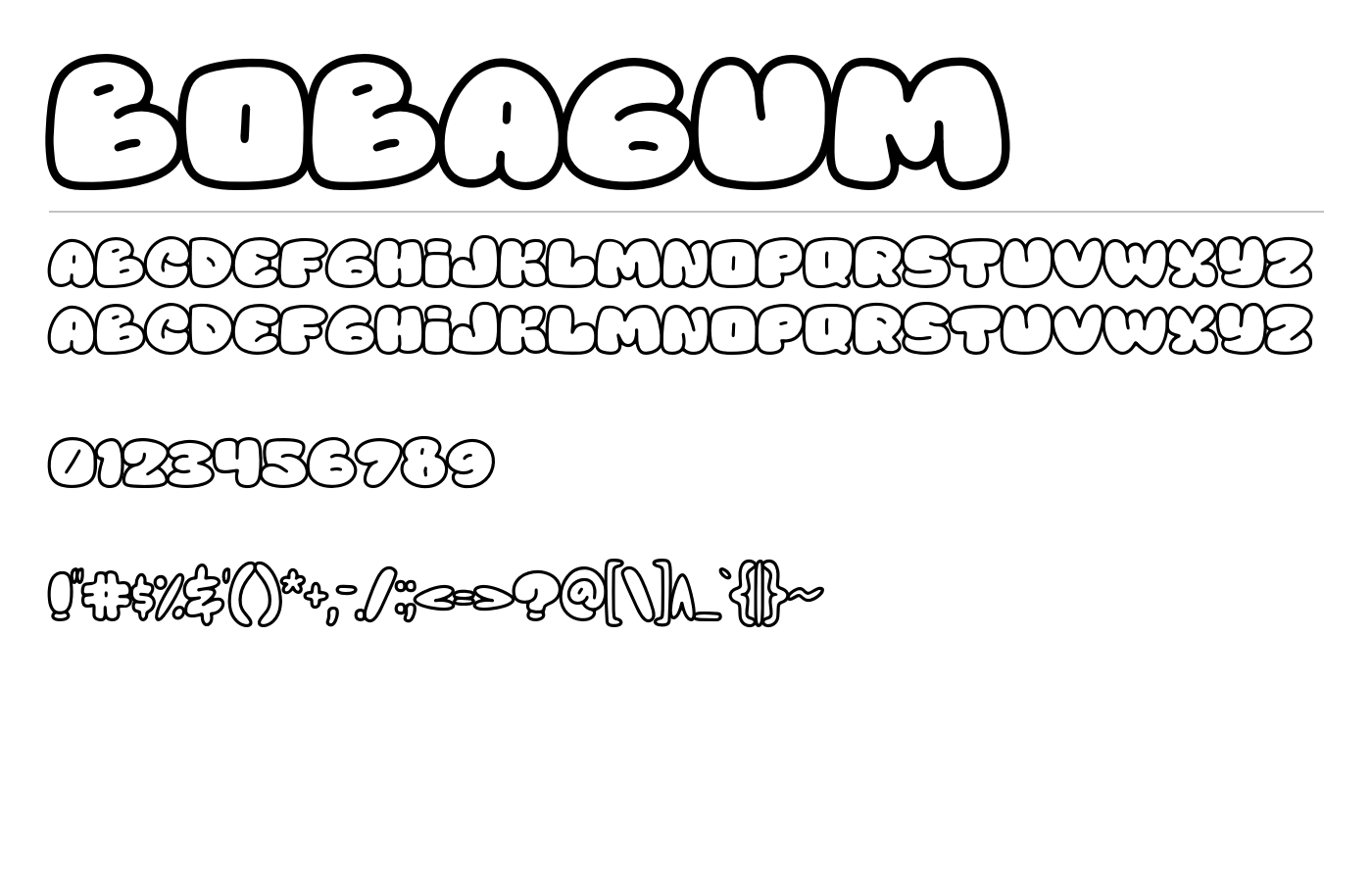
Bobagum Font is a playful, rounded sans serif typeface with bold, bubbly letterforms that create a fun and approachable vibe. Its thick, soft strokes and generous spacing make it ideal for children’s designs, casual branding, and any context where a friendly, whimsical personality is desired. This font works best in headlines, logos, and packaging where a joyful and lighthearted tone is needed.
Bobagum Font
About Bobagum Font
| Font family | Bobagum Font |
| Designer | Anggi Hermawan |
| Trademark | Bobagum is a trademark of Forberas Type Foundry. |